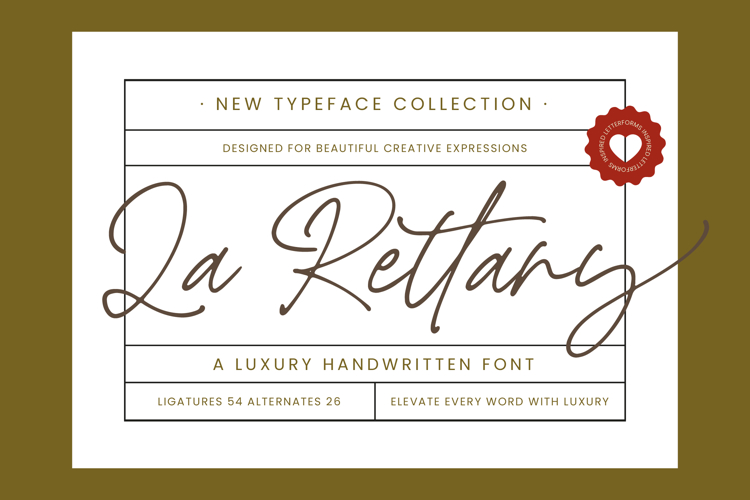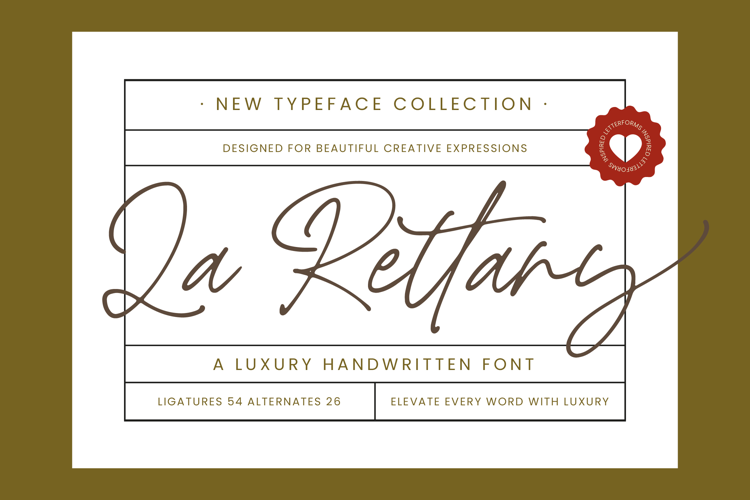
La Rettany - Luxury Handwritten Font
Elevate your brand's visual identity with unparalleled grace and sophisticated charm. La Rettany - Luxury Handwritten Font is a masterfully crafted typeface designed to provide a bespoke quality to every design. With its fluid strokes and monolinear elegance, it captures the essence of a high-fashion signature, making it an essential tool for designers seeking to convey exclusivity and premium craftsmanship in their digital and print media.
Precision-engineered for high-impact results, this typeface serves as the ultimate luxury branding solution. La Rettany - Luxury Handwritten Font is perfect for premium packaging, editorial design, and upscale wedding stationery. Whether you are developing a boutique logo or creating sophisticated social media graphics, this font provides the artistic flair needed to stand out in a crowded market while maintaining a professional and timeless appeal